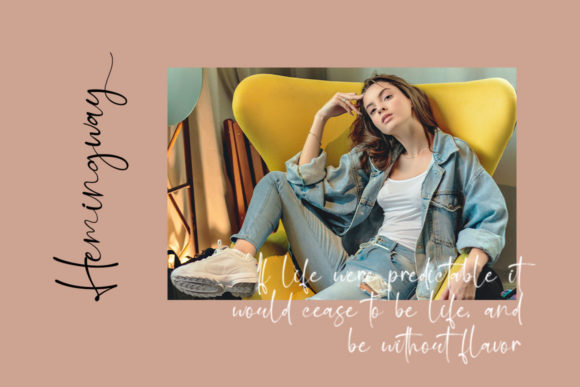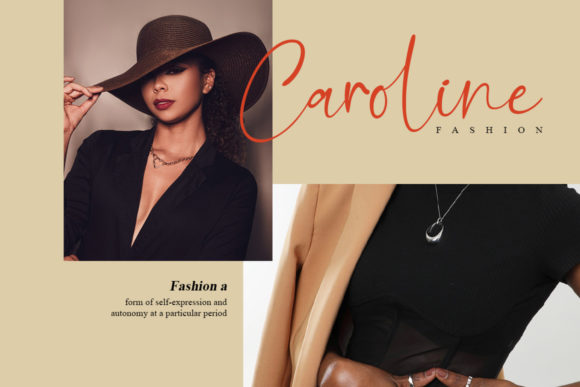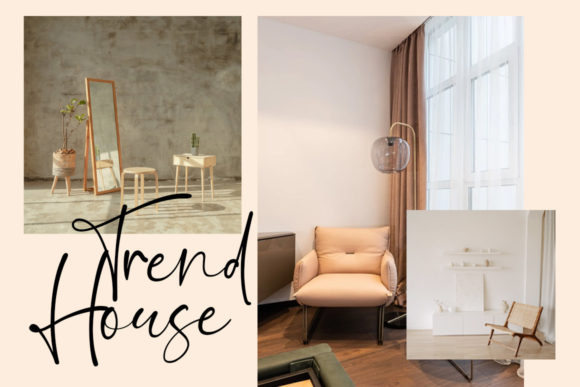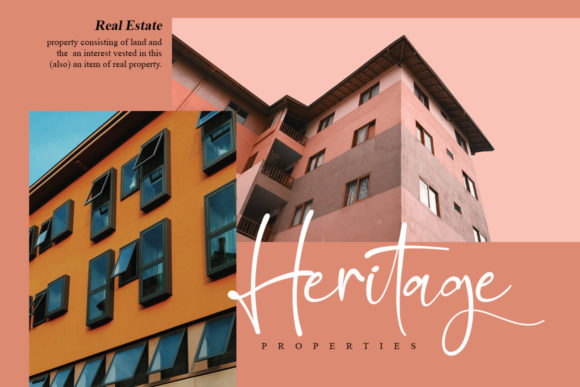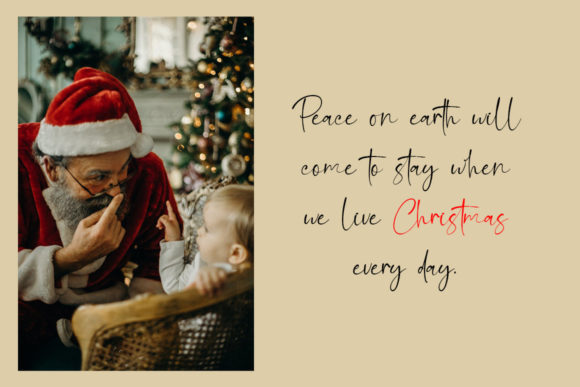
About Milk Butter Font
Milk ButterĀ is an elegant and dainty handwritten font that features sweet and delicate swashes. This original look will appeal to a wide range of crafty ideas, from letterheads and titles, to stationery.